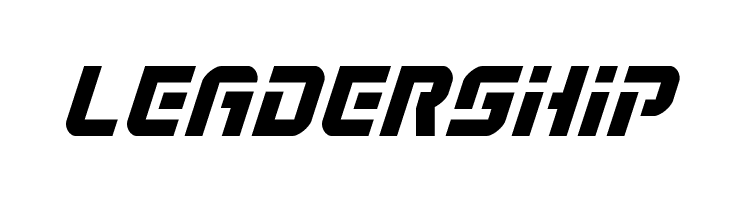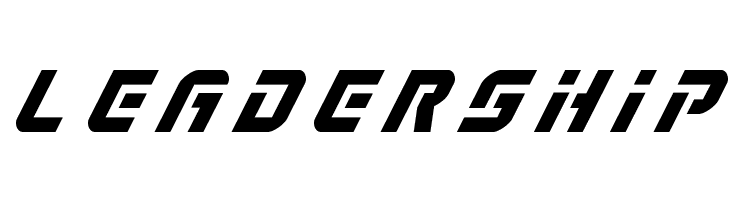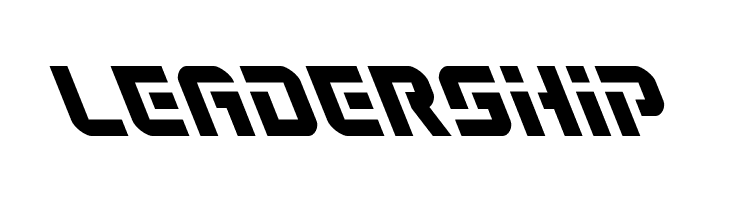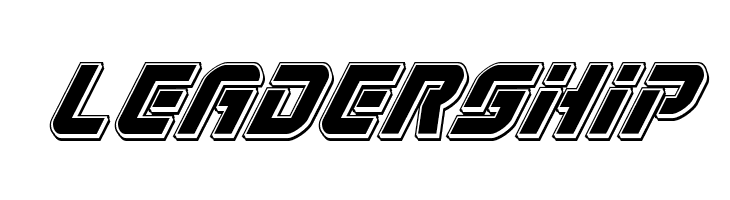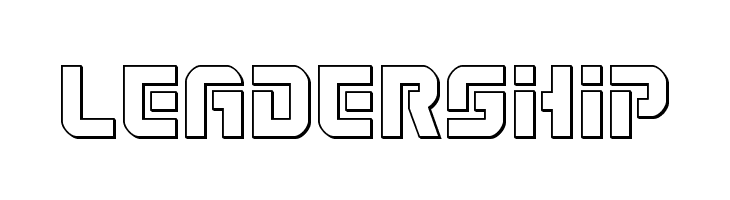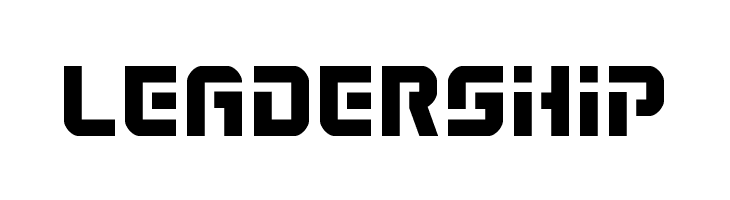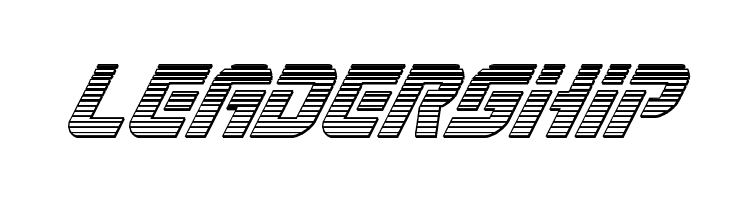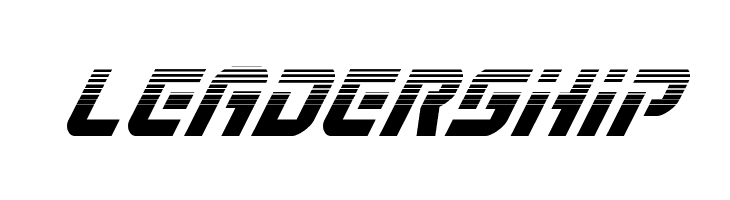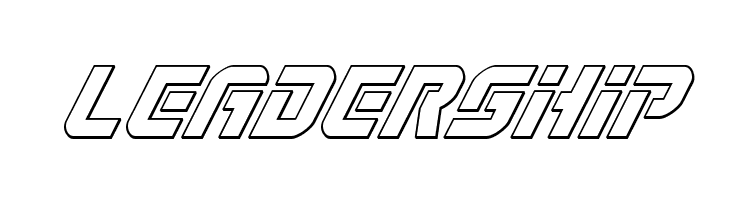
( Fonts by Colonel Sanders )
A pixelated, grid-based font inspired by digital displays.
( Matthew Lee )
A modern, geometric sans-serif font with clean lines and balanced characters.
( Matthew Lee )
A modern, geometric sans-serif font with rounded edges and balanced spacing.
A playful dingbat font featuring a variety of whimsical objects.
A bold, flowing script font with elegant, interconnected curves.
A bold, geometric 3D font with a modern, industrial style.
A bold, 3D italic font with a futuristic and dynamic design.
A bold, geometric font with a three-dimensional beveled edge.
A bold, italicized font with a beveled, three-dimensional style.
A bold, geometric typeface with strong, angular lines and a modern aesthetic.
A bold, italicized font with a modern, dynamic style and strong presence.
A bold, futuristic font with a chrome-like, layered design.
A bold, italicized font with a futuristic, chrome-like striped design.
A bold, geometric, and condensed font with a futuristic and industrial style.
A bold, italic, and condensed font with a modern, dynamic style.
A bold, geometric font with an engraved, three-dimensional appearance.
A bold, italic, engraved font with a three-dimensional outline effect.
A bold, geometric font with an expanded width and futuristic design.
A bold, italic, and expanded font with a modern, dynamic style.
A bold, modern font with a gradient effect and geometric design.
A bold, italicized font with a gradient effect and futuristic style.
A bold, geometric font with a halftone pattern and modern digital appeal.
A bold, italicized font with a halftone effect, offering a dynamic and futuristic look.
A bold, angular, left-slanted font with a futuristic and dynamic style.
A bold, geometric outline font with a modern, futuristic style.
A bold, italicized outline font with a futuristic and geometric design.
A bold, italic font with geometric shapes and strong outlines, exuding energy and modernity.
A bold, semi-italic font with a dynamic and futuristic design.
A bold, italicized font with a futuristic and dynamic design.
A playful, outlined font with bold, double-line characters.
( Fonts by Tikara Sari )
A bold, playful font with a quirky, hand-drawn aesthetic.